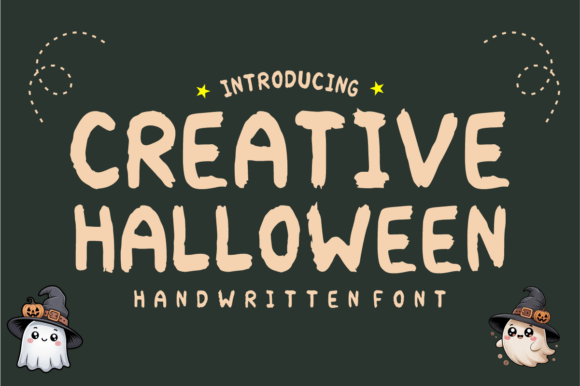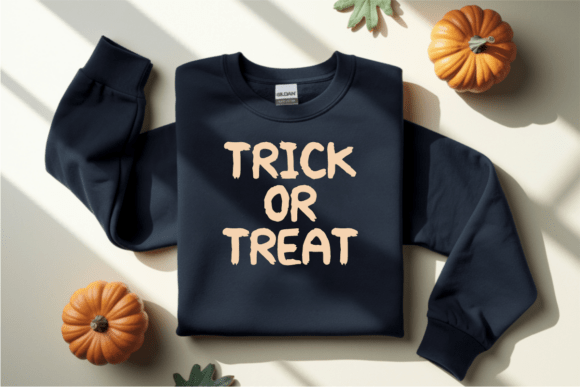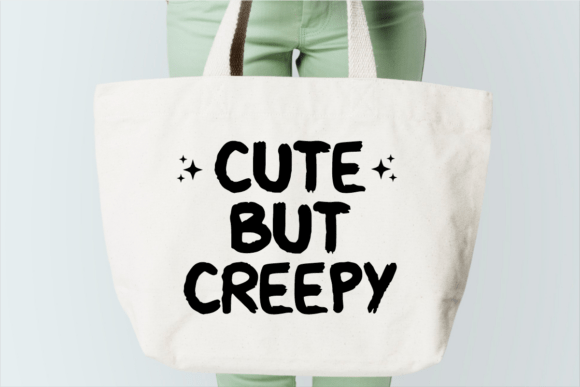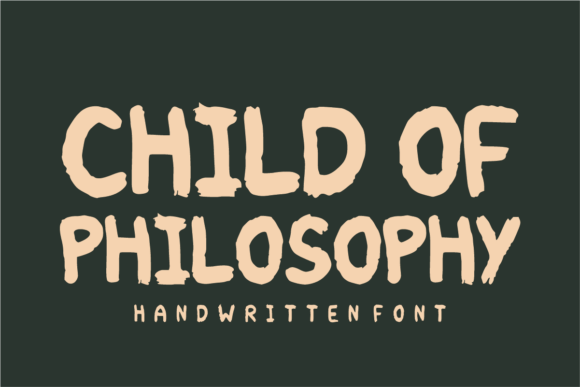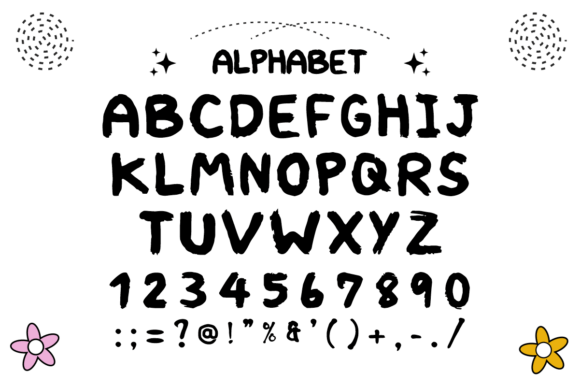
Spooky Season Ahead: Introducing the Creative Halloween Font
As the leaves start to change and the nights grow darker, designers everywhere are itching to unleash their creativity and get into the Halloween spirit. For many, this means brainstorming ideas for spooky decorations, haunted houses, and other creepy delights. But what really sets your designs apart from the rest? That’s where the Creative Halloween Font comes in – a modern, brush-style font that’s guaranteed to add a touch of magic to your seasonal creations.
With its unique blend of spooky charm and cheerful whimsy, the Creative Halloween Font is the perfect addition to any designer’s toolkit. Whether you’re working on a haunted house sign, a set of spooky stickers, or a Halloween-themed graphic novel, this font is sure to bring your designs to life. And with its versatility and ease of use, it’s a valuable asset for designers of all levels.
Creative Halloween Font Key Features
- Unique Characteristics: The font features spooky and playful elements, making it perfect for Halloween-themed designs and projects.
- Customizable: The font is fully editable, allowing users to customize the font’s colors, sizes, and styles to fit their design requirements.
- Comprehensive Character Set: Includes a wide range of characters, including uppercase and lowercase letters, numbers, punctuation marks, and special characters, making it suitable for various design applications.
Review: Creative Halloween Font
As a designer, I’m always on the lookout for unique and creative fonts to enhance my designs. The Creative Halloween Font is a decent addition to my collection, but it has its limitations.
- ✨ The font is perfect for creating spooky and eerie atmospheres, making it ideal for Halloween-themed projects.
- ✨ It comes in a variety of styles and sizes, giving designers plenty of options to choose from.
- ✨ The font is relatively easy to use and can be customized to fit different design needs.
Limitedations:
- ⚠️ The font may be too garish for some designs, making it hard to balance with other elements.
- ⚠️ Some characters may not be fully compatible with all devices and browsers.
- ⚠️ The font may not be suitable for large-scale projects or long passages of text.
Overall, the Creative Halloween Font is a fun and creative addition to any designer’s collection. While it has its limitations, it’s perfect for small-scale projects or designs that require a spooky atmosphere. I would recommend it for designers looking for a unique and playful font to add some personality to their work.